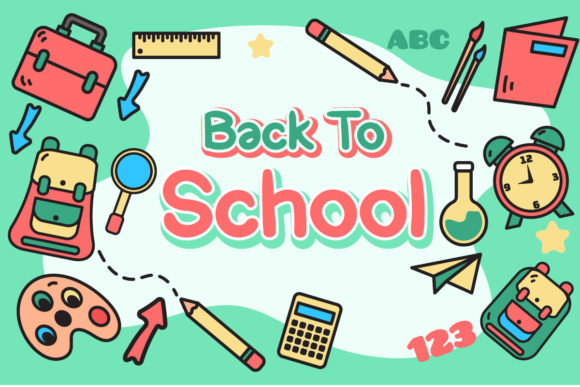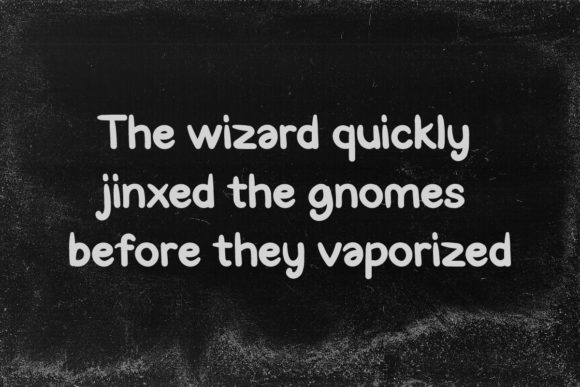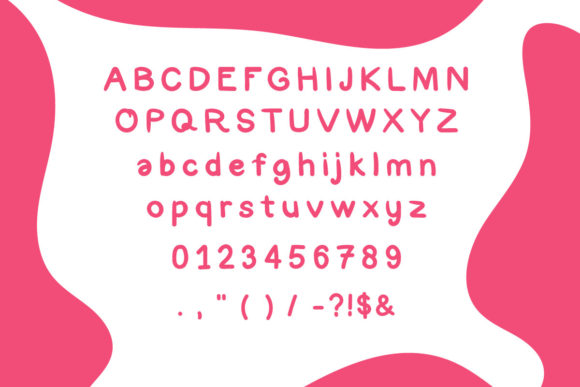
Introduction to Crispynut Font
Crispynut is a fun and bubbly display font.
Key Features of Crispynut Font
Why Choose Crispynut Font?
Crispynut Font offers exceptional quality and versatility, making it a valuable addition to your design toolkit. Whether you’re creating for personal projects or commercial use, Crispynut Font delivers professional results.